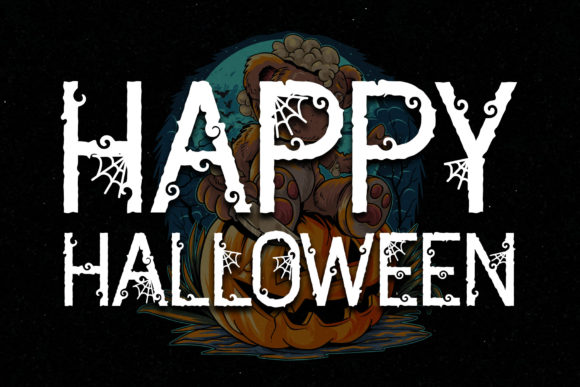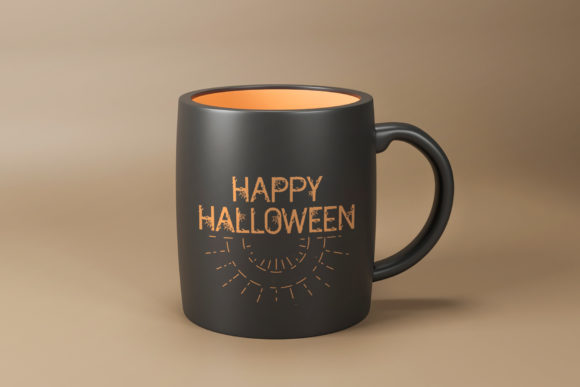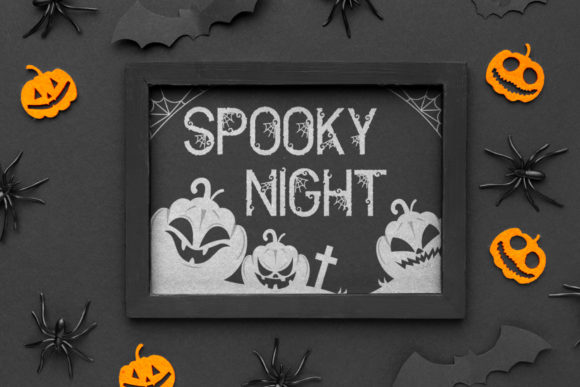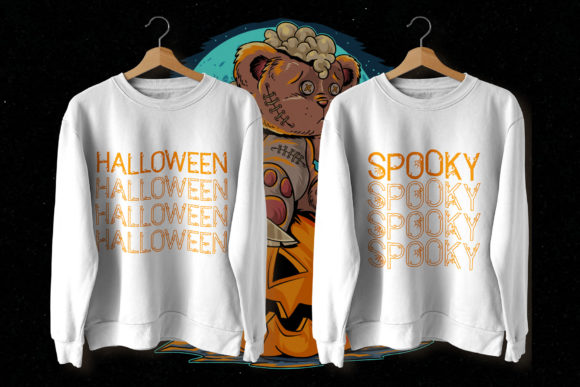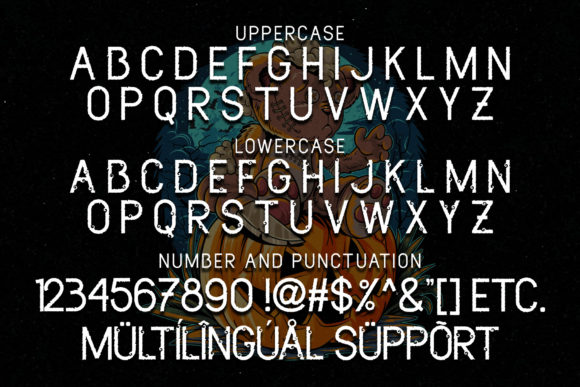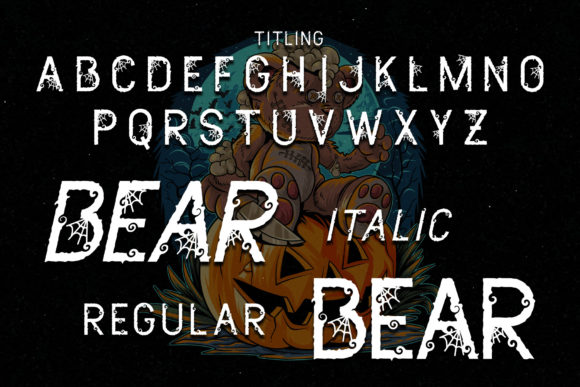
The Creepy Charm of Dead Bear Font: A Designer’s Delight
I still remember the project that led me to discover the Dead Bear Font. I was working on a spooky-themed craft project for a client, and I was struggling to find the perfect font to match the eerie vibe. That’s when I stumbled upon Dead Bear, and it instantly became the star of the show. Its uniquely shaped letters and imposing presence made it the perfect fit for my project, and I knew I had to share it with fellow designers and creative hobbyists.
An Honest Review of Dead Bear Font
- ✨ Unique and quirky letterforms that add a touch of personality to any design
- ✅ Imposing presence that commands attention
- 💡 Versatile and can be used for a wide range of projects, from spooky crafts to bold displays
- 🎨 Highly legible, despite its unconventional design
While Dead Bear Font is an amazing addition to any design project, there are a few things to keep in mind:
- 🤔 Some letters may be a bit tricky to read, especially for those with dyslexia or other reading challenges
- ⚠️ Not suitable for body text or long-form writing, as it’s best used for display purposes
One of the best things about Dead Bear Font is its OpenType features and glyphs. With a little experimentation, you can unlock a range of stylistic alternates, swashes, and other decorative elements to take your design to the next level.
The Story Behind Dead Bear Font
Legend has it that Dead Bear Font was inspired by the work of a reclusive, horror-loving type designer who wanted to create a font that would make people shiver with delight. With its uniquely shaped letters and imposing presence, it’s no wonder Dead Bear Font has become a favorite among designers and creative hobbyists.
Q: Is Dead Bear Font suitable for body text?
A: No, Dead Bear Font is best used for display purposes, such as headings, titles, and captions. Its unconventional design can make it difficult to read in large blocks of text.